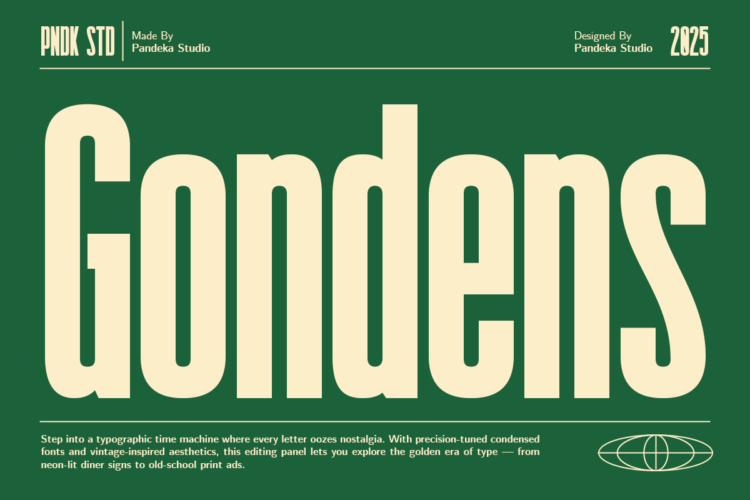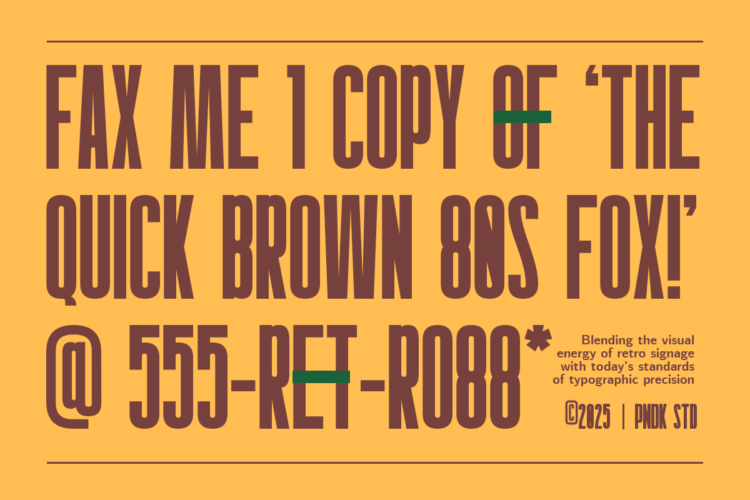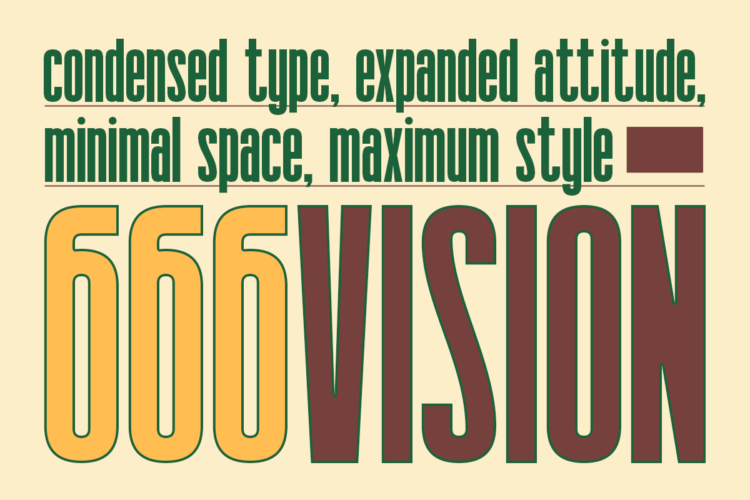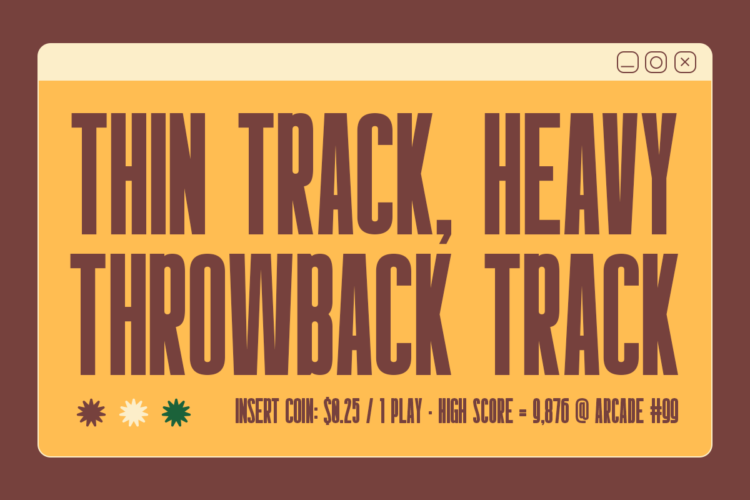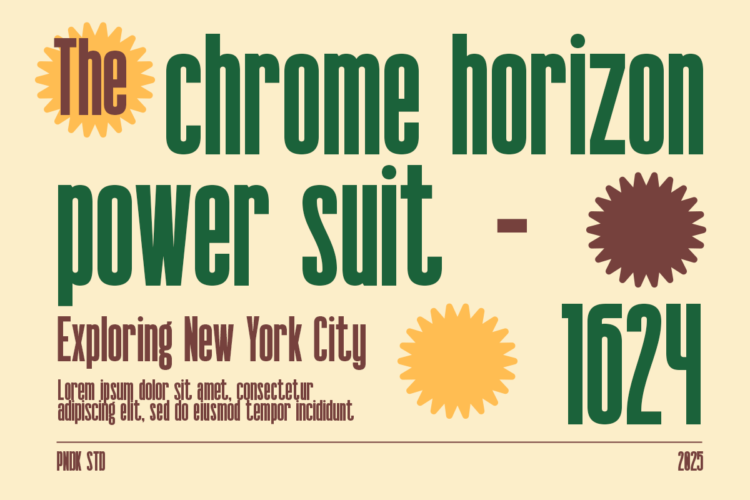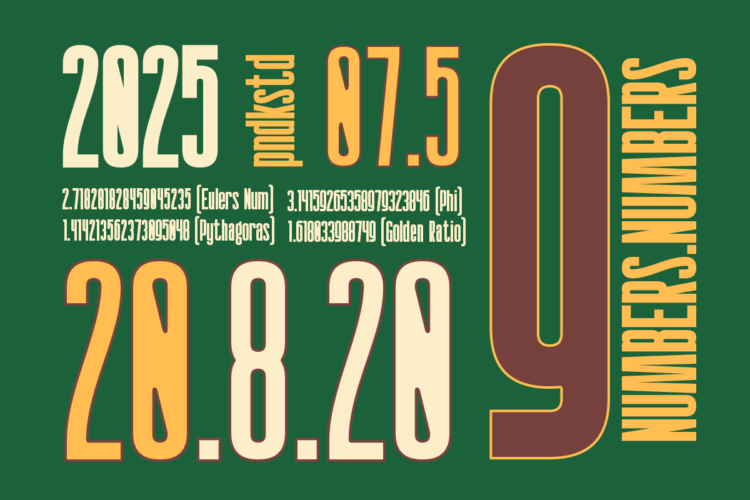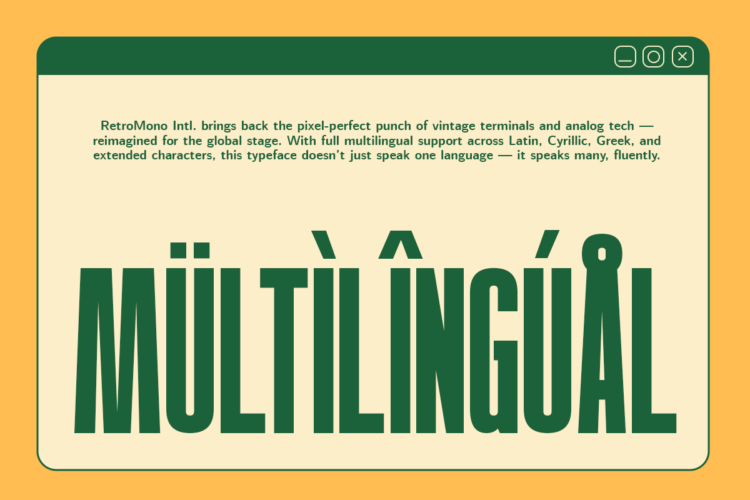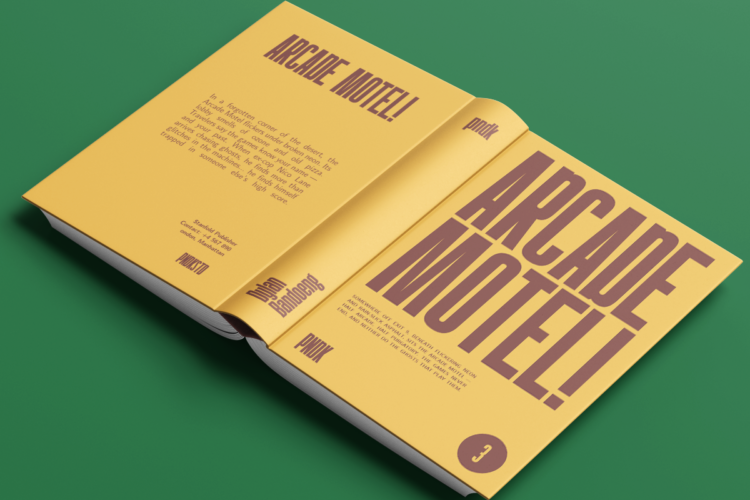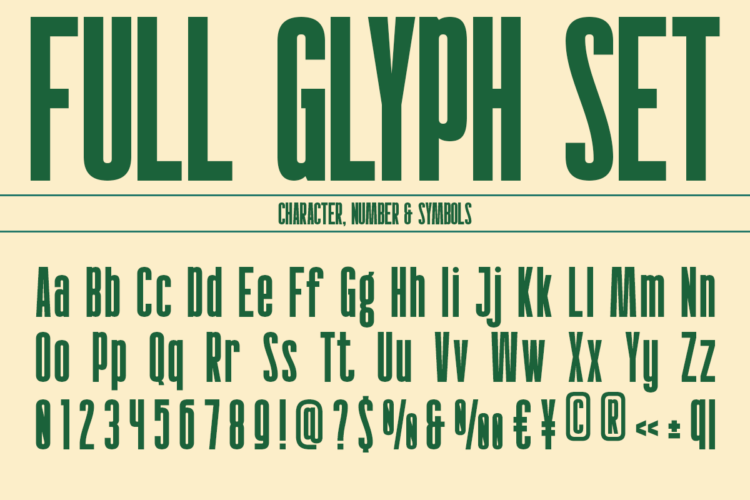
Gondens
Gondens is a bold condensed display font that combines retro charm with modern usability. Its tall, narrow letterforms deliver strong impact while saving space, making it perfect for posters, magazines, packaging, album covers, and bold branding statements. Inspired by vintage aesthetics but adapted for today’s design needs, Gondens strikes the balance between nostalgia and fresh visual appeal.
Although it comes in a single Regular style, Gondens offers wide flexibility for headlines, logos, editorial titles, and promotional graphics. Equipped with uppercase and lowercase letters, numbers, punctuation, symbols, and multilingual support, this font is designed to give your work a striking and memorable presence.
Gondens - Retro Vintage Condensed